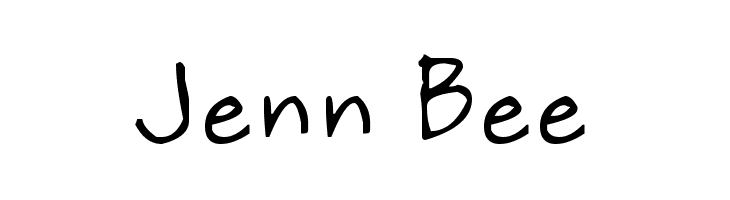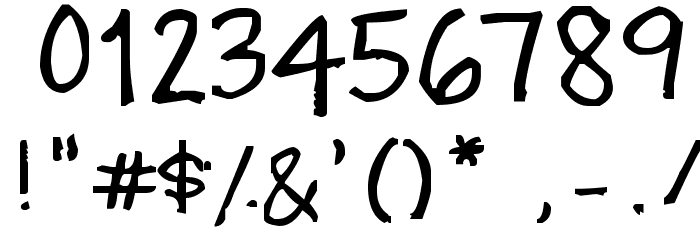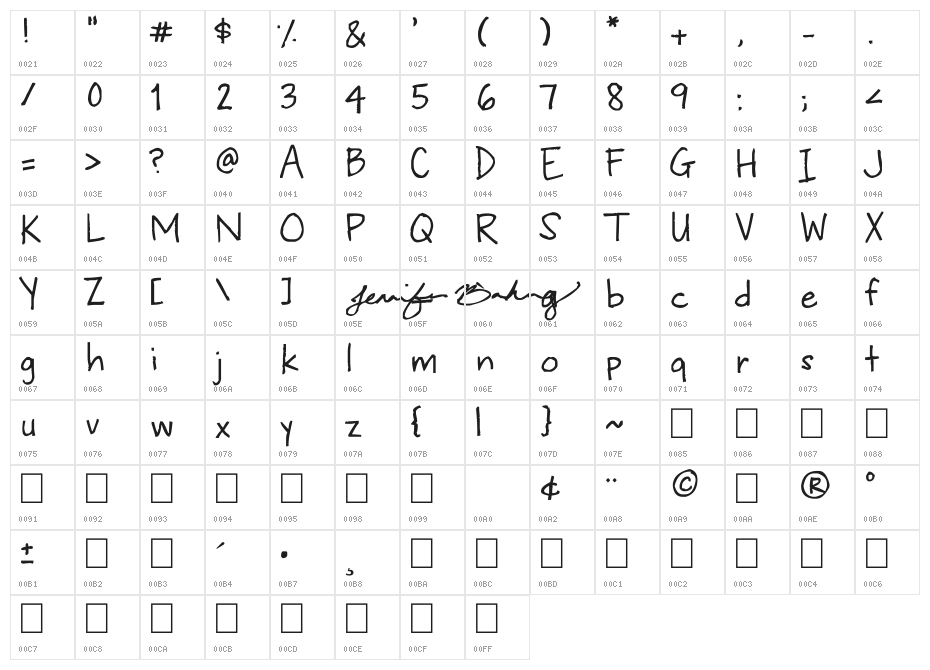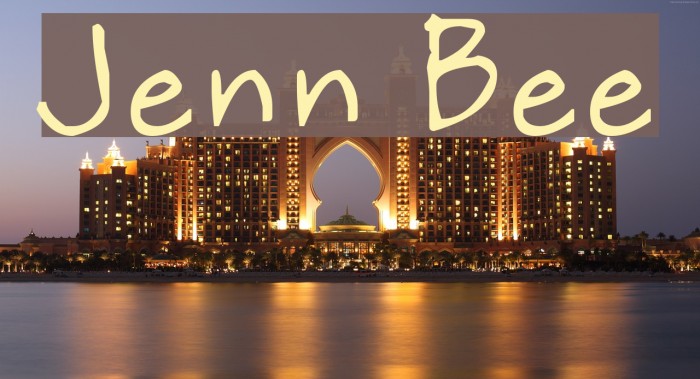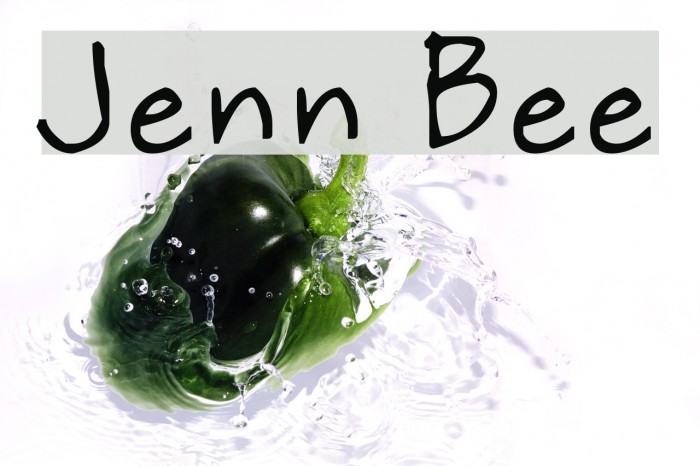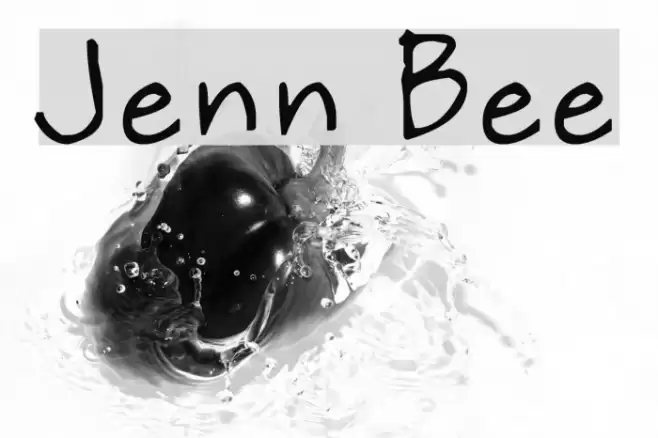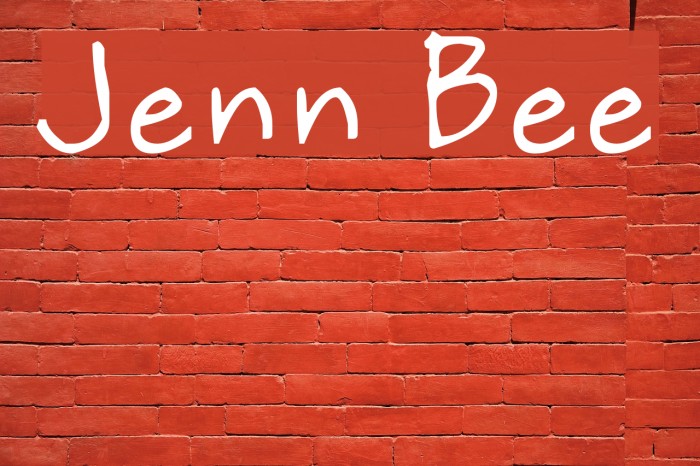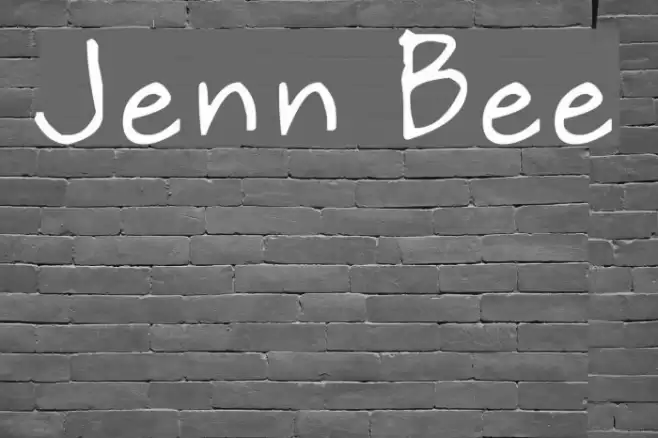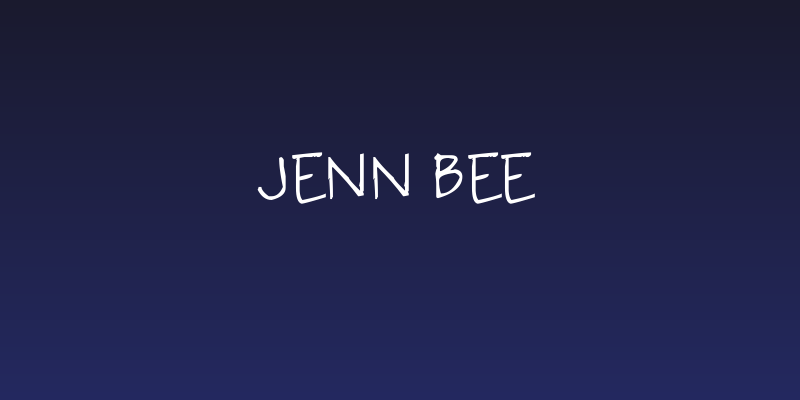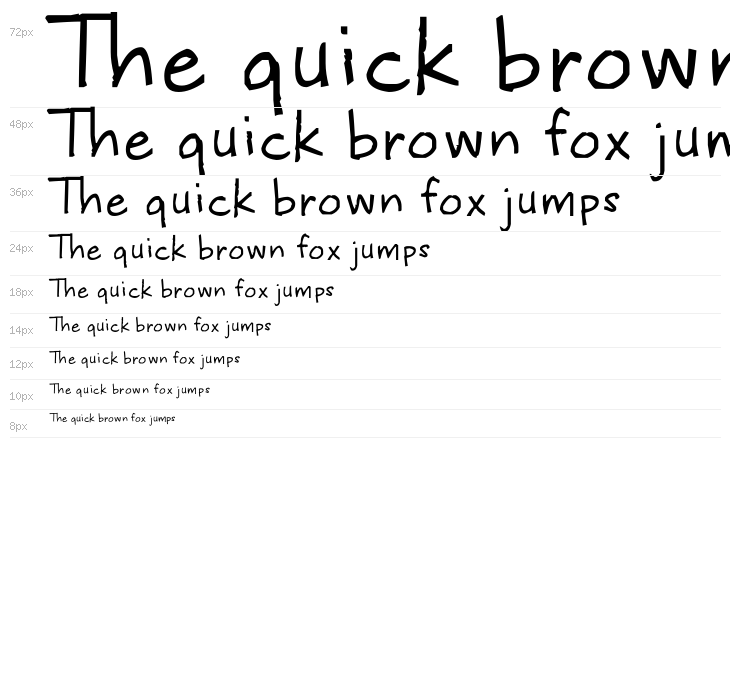
Jenn Bee Font
Jenn Bee Description
This font features a playful, handwritten style that conveys a casual and informal tone. The letters are slightly irregular, with varying stroke thickness that adds a dynamic and lively feel. The uppercase and lowercase letters maintain a consistent style, with rounded edges and a slight slant that enhances the handwritten appearance. The numerals and special characters are crafted with the same playful touch, ensuring a cohesive look across all characters. This font is perfect for projects that require a personal touch, such as greeting cards, invitations, or creative branding materials. Its unique style makes it stand out, adding character and warmth to any design.